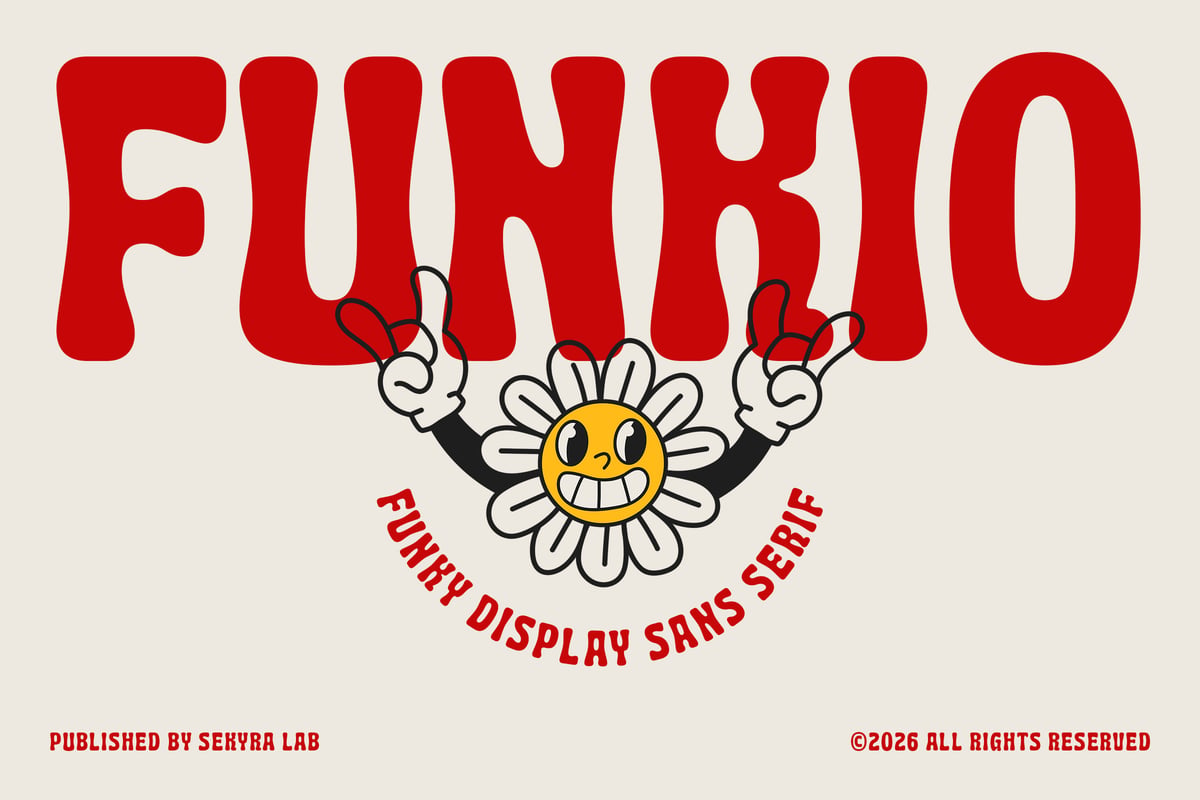
Funkio Font
Bring explosive fun and personality to your designs with Funkio's bold, chunky letterforms and retro-inspired charm.
Funkio is a playful display sans serif font that combines chunky shapes with soft curves to create an irresistibly cheerful aesthetic. This typeface delivers strong visual impact while maintaining a friendly, approachable character that makes every word feel lively and full of personality.
Perfect for projects that demand a funky and expressive vibe, Funkio excels in posters, packaging design, branding projects, children's materials, and food visuals. Its unique letterforms transform ordinary text into engaging, memorable design elements.